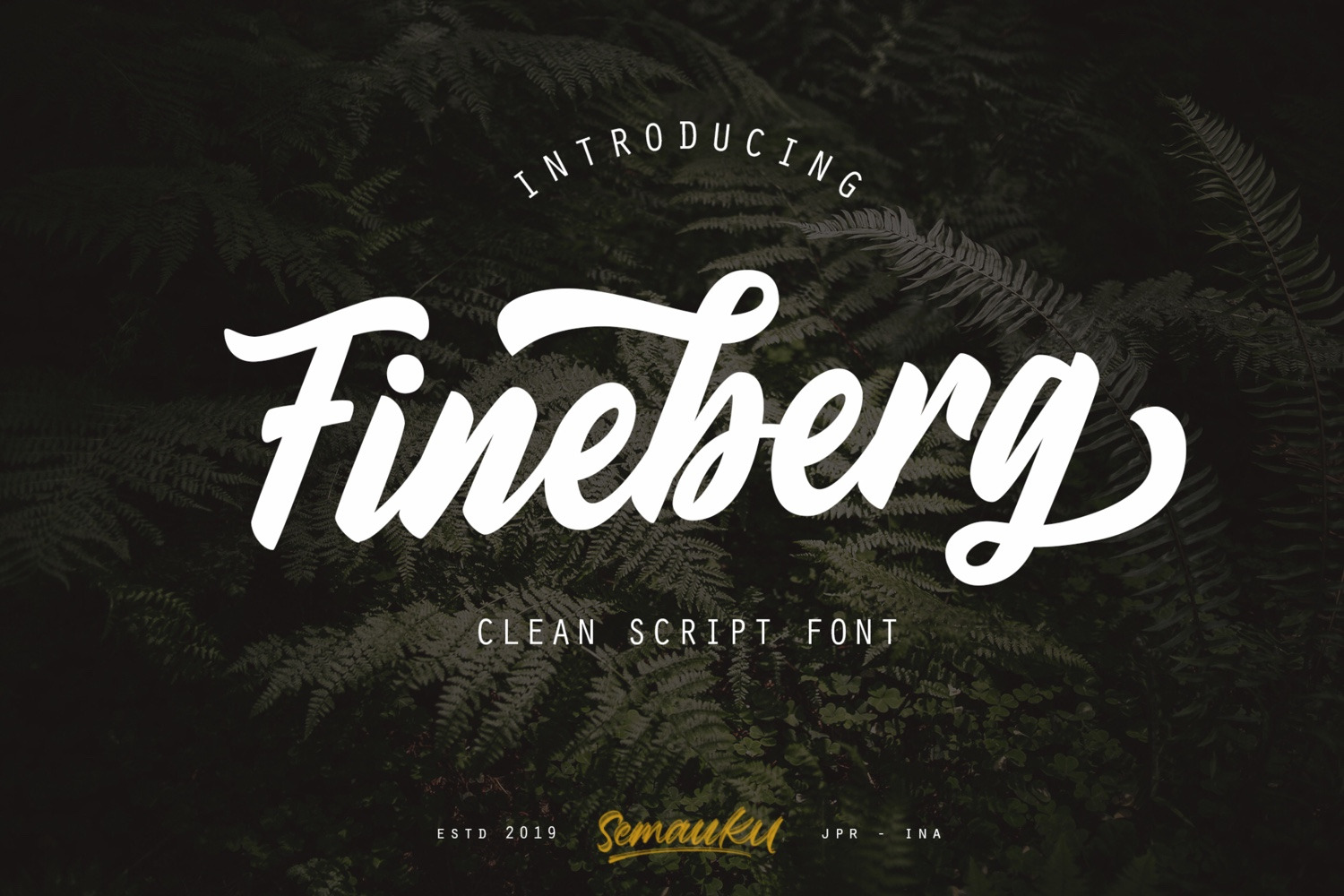
Fineberg | Script Font
Introducing: Fineberg ! Clean Script Font. Font Fineberg is very suitable for branding projects, home appliances design, product packaging, design on t-shirts, calendar design, logo design and so on.
features in this font are A-Z Uppercase, lowercase a - z, symbol, number, stylistic set, and support multilanguage.